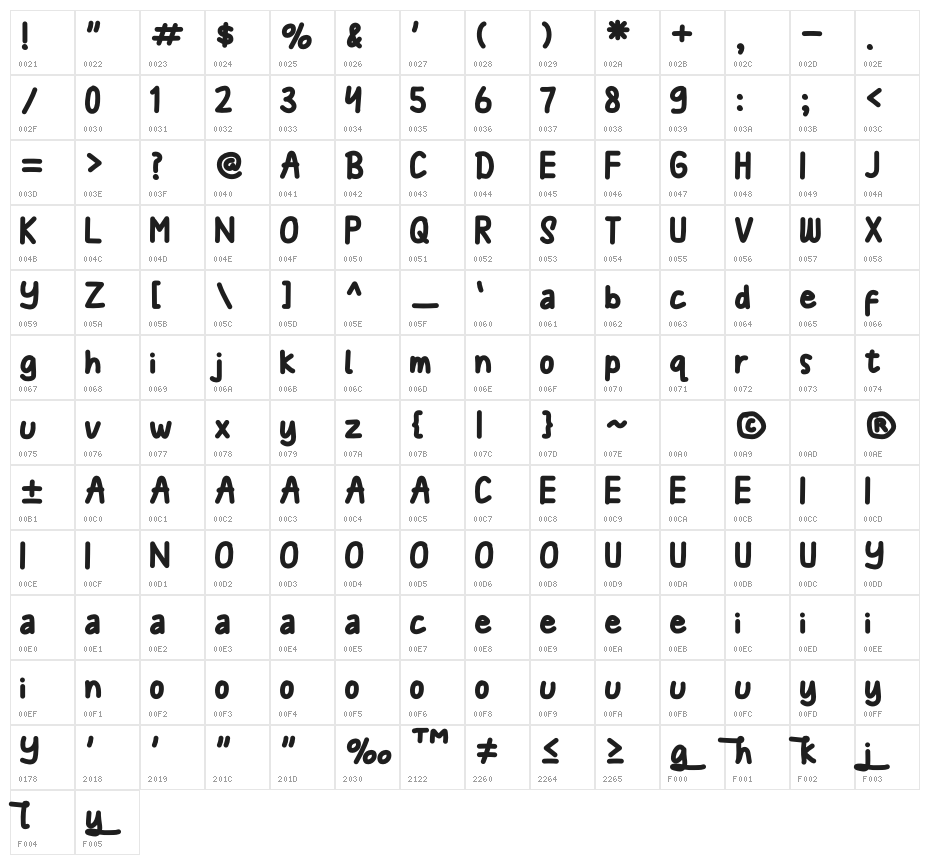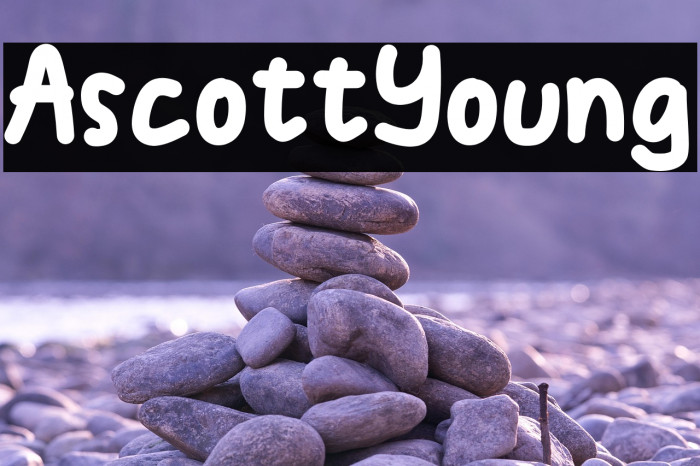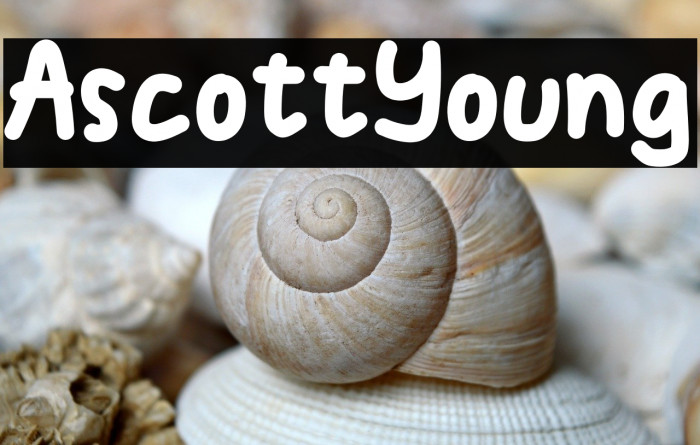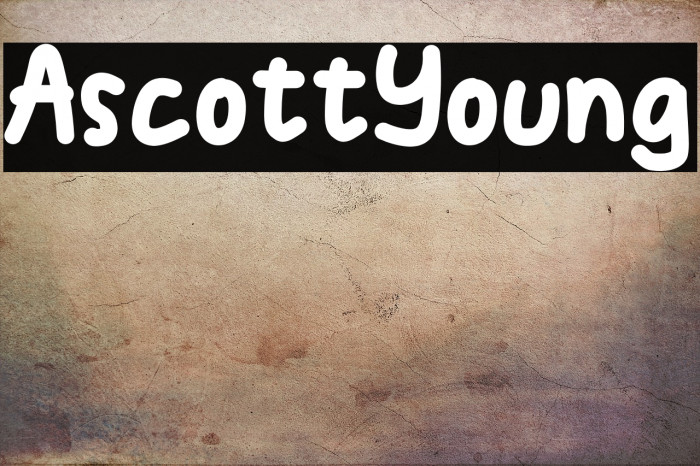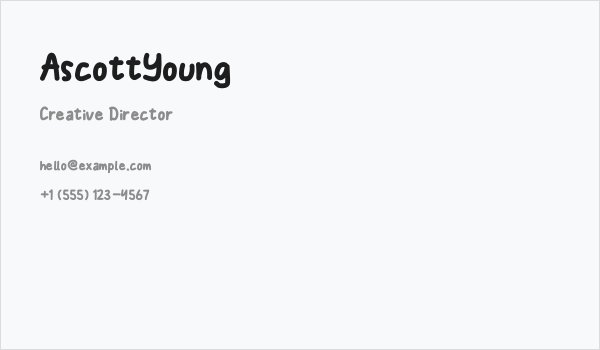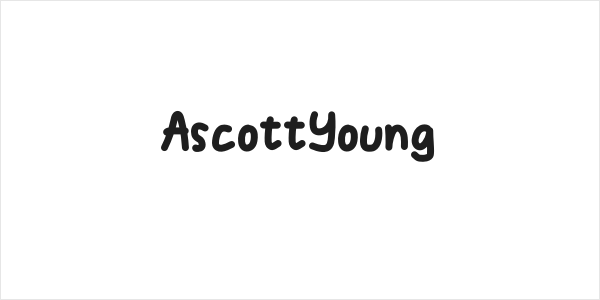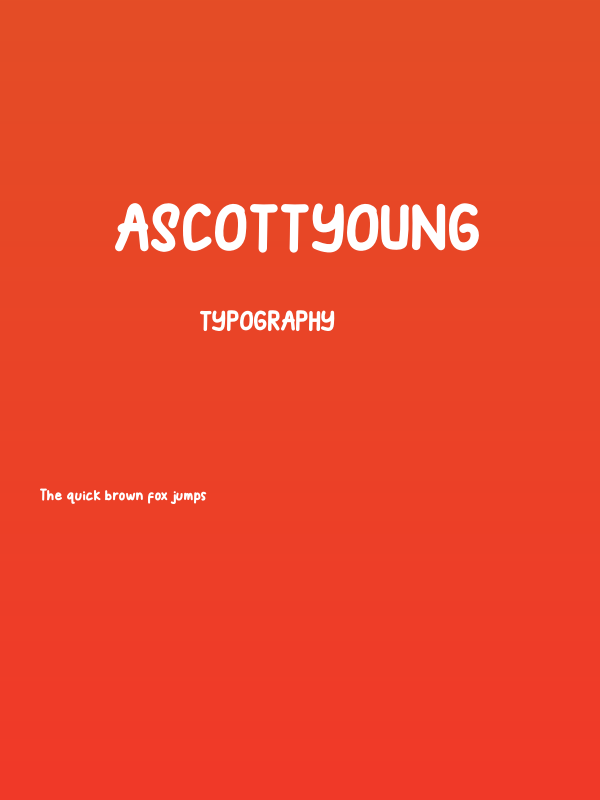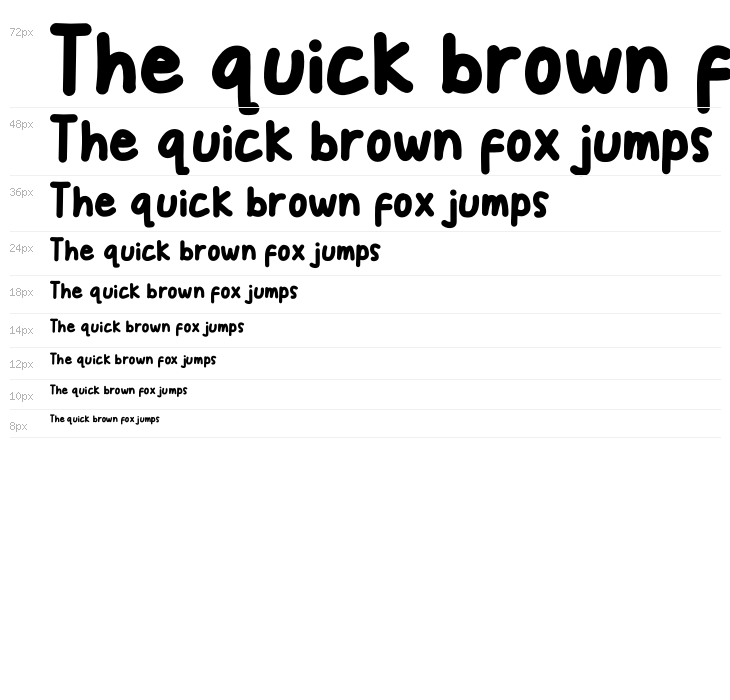
AscottYoung Font
AscottYoung Description
This font features a playful and bold style with rounded edges and a hand-drawn appearance. The characters are slightly irregular, adding a whimsical and informal touch. The uppercase and lowercase letters maintain a consistent thickness, contributing to a cohesive look. Numbers and special characters follow the same playful design, making the font suitable for creative and fun projects. The overall style is casual and approachable, ideal for designs that aim to convey friendliness and creativity.
| Proposed Projects | Ideal for children's books, playful branding, greeting cards, and creative posters. |